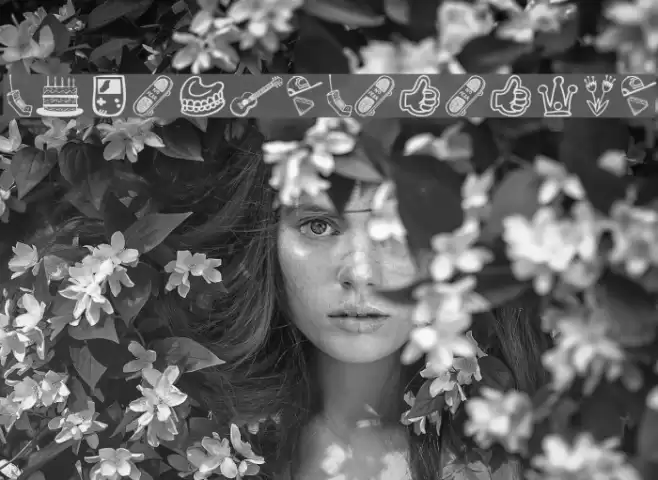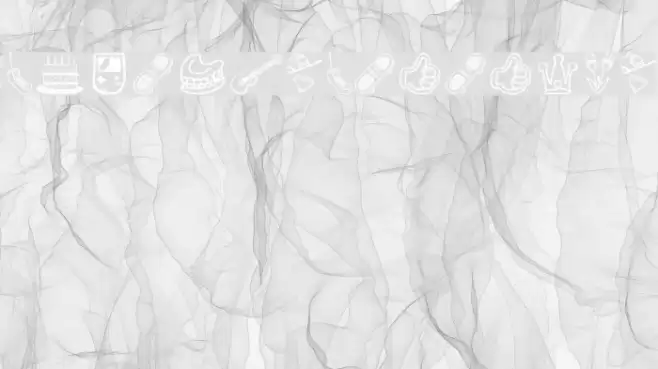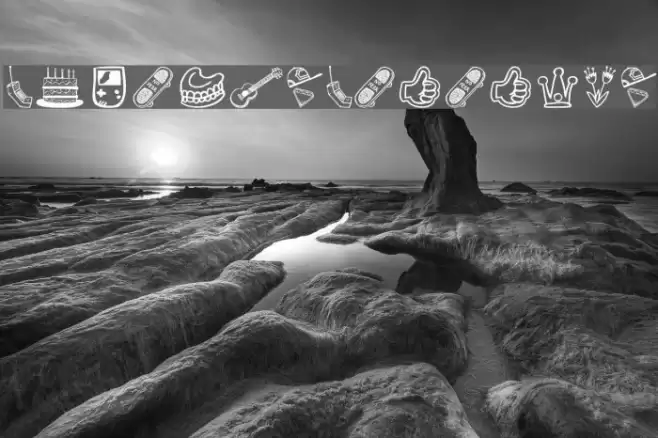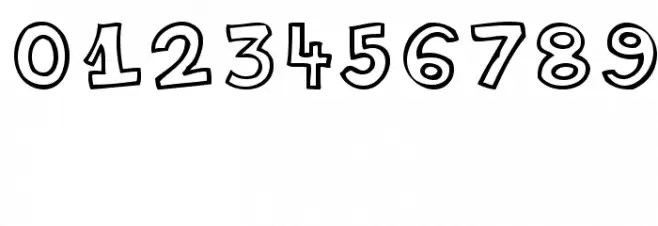
Life Style Memory Font
Life Style Memory Description
This font is a playful and whimsical collection of icons and numbers, each character represented by a unique and fun illustration. The icons include a variety of everyday objects and symbols, such as ice cream cones, balloons, musical notes, and more, each drawn with a light-hearted and cartoonish style. The numbers are bold and outlined, maintaining the playful theme with a slightly exaggerated and rounded appearance. This font is designed to bring a sense of fun and creativity to any project, making it ideal for informal and light-hearted applications.
A playful and whimsical icon-based font with bold, outlined numbers from Uncategorized fonts.
- Proposed Projects: Ideal for children's books, party invitations, playful branding, and creative posters.
- Overall Style: Playful, Cartoonish
- Use Case: Logos, Posters, Invitations